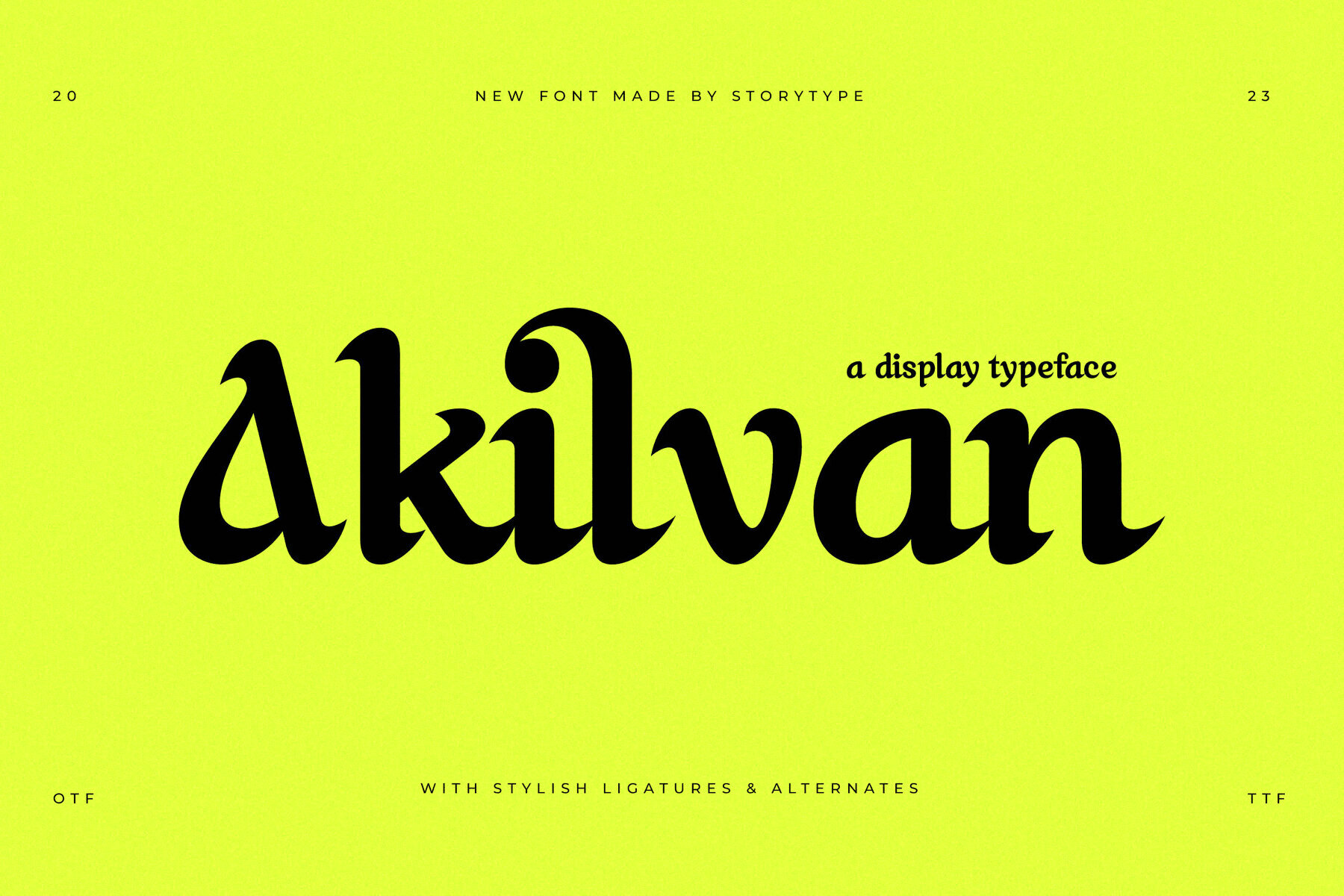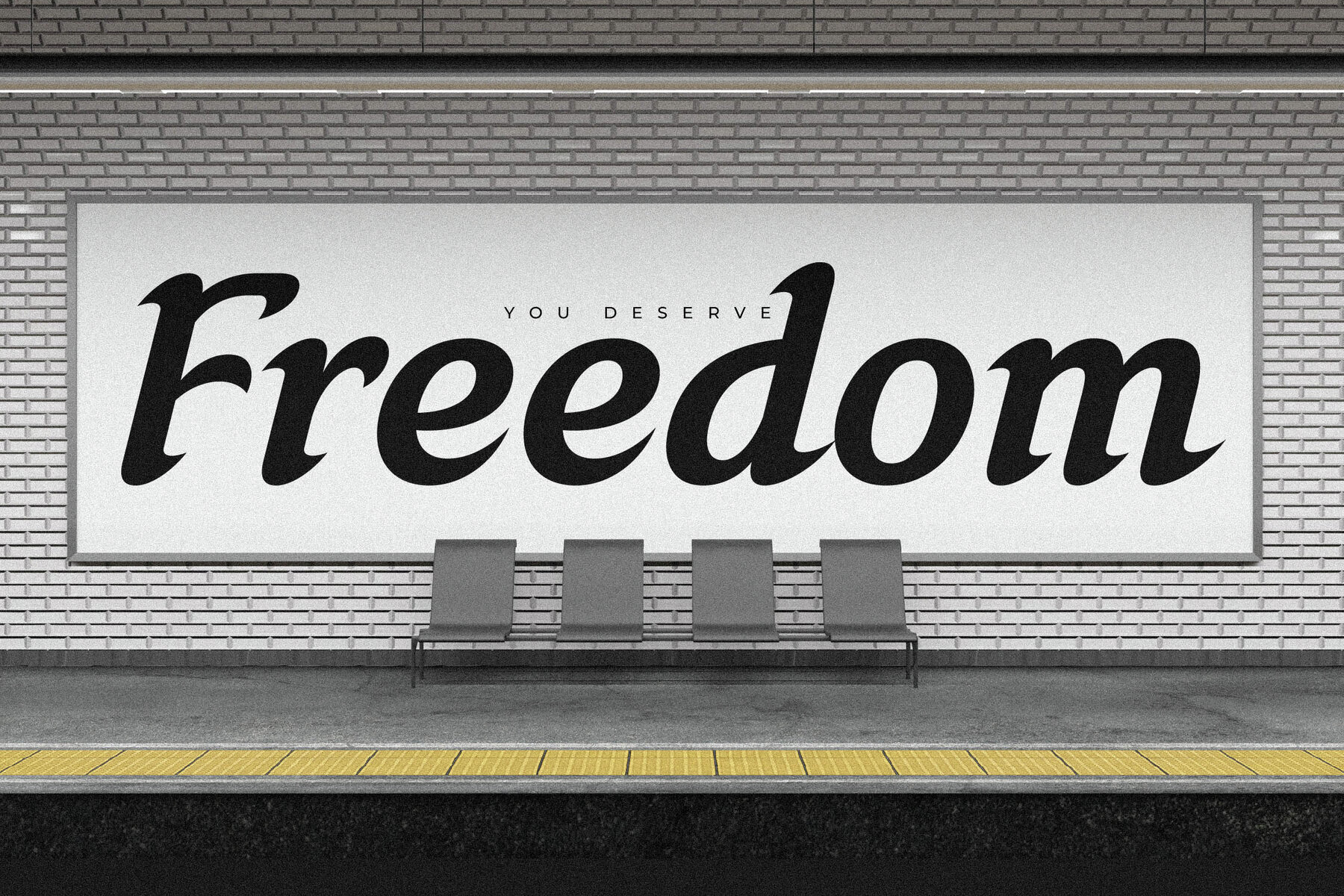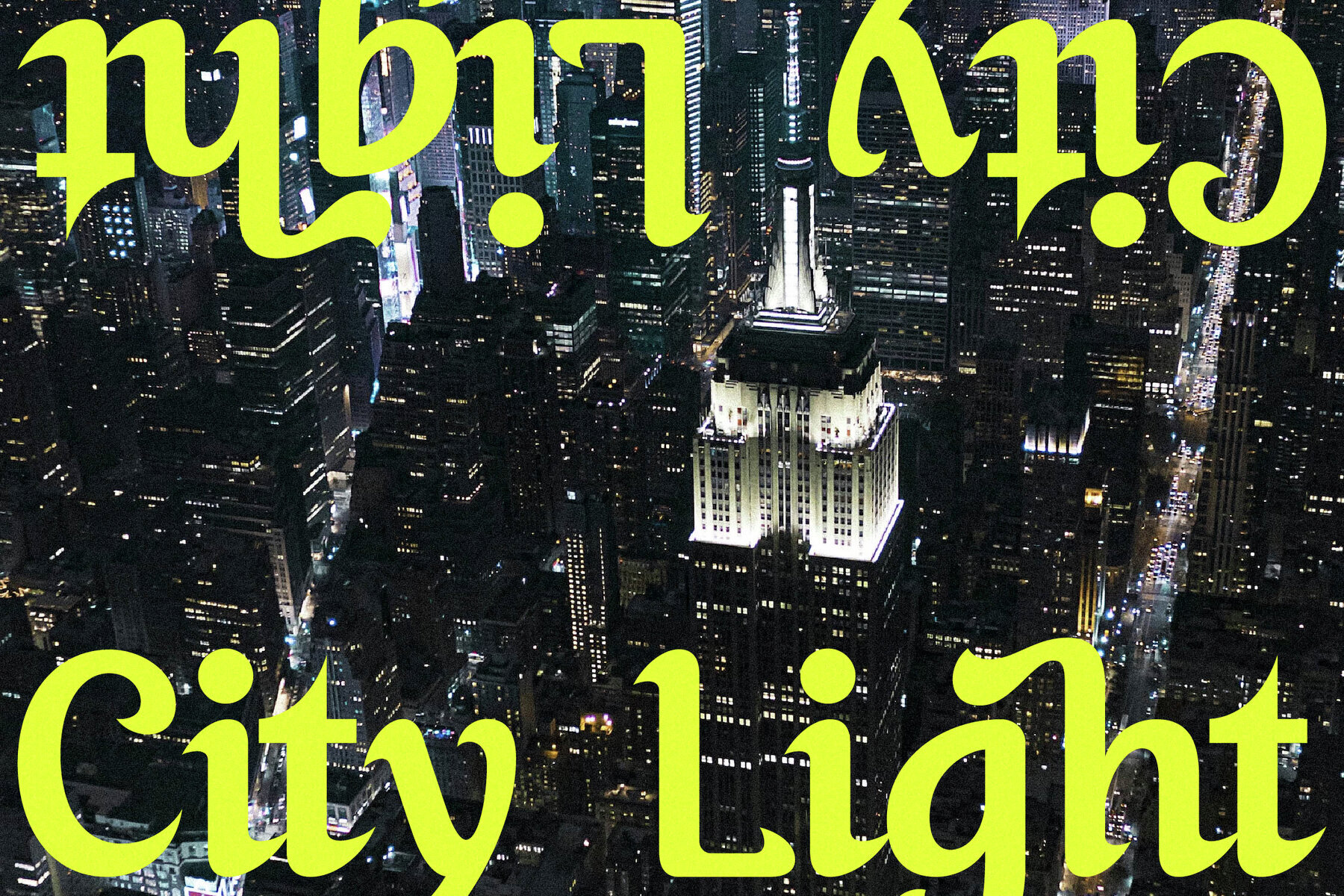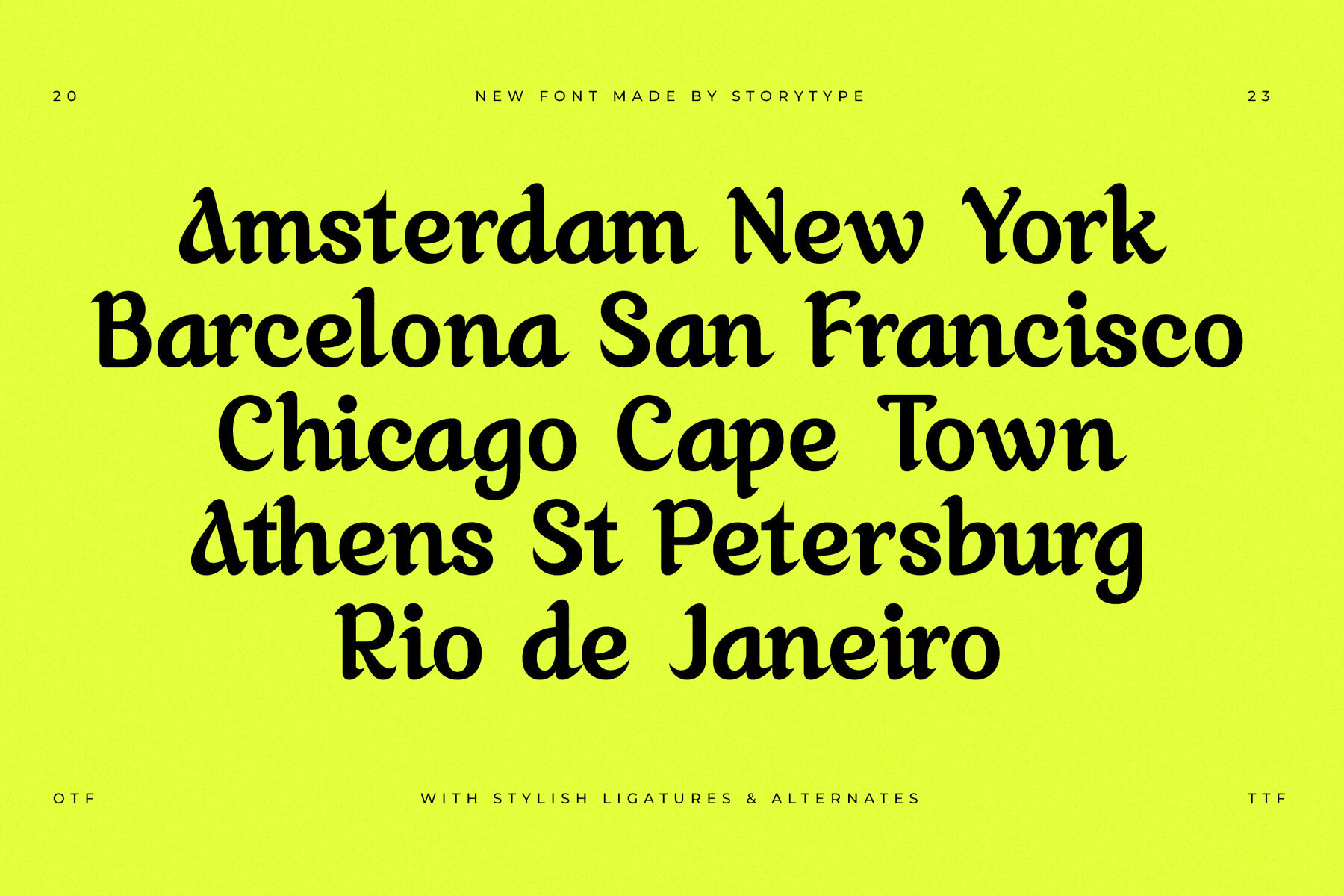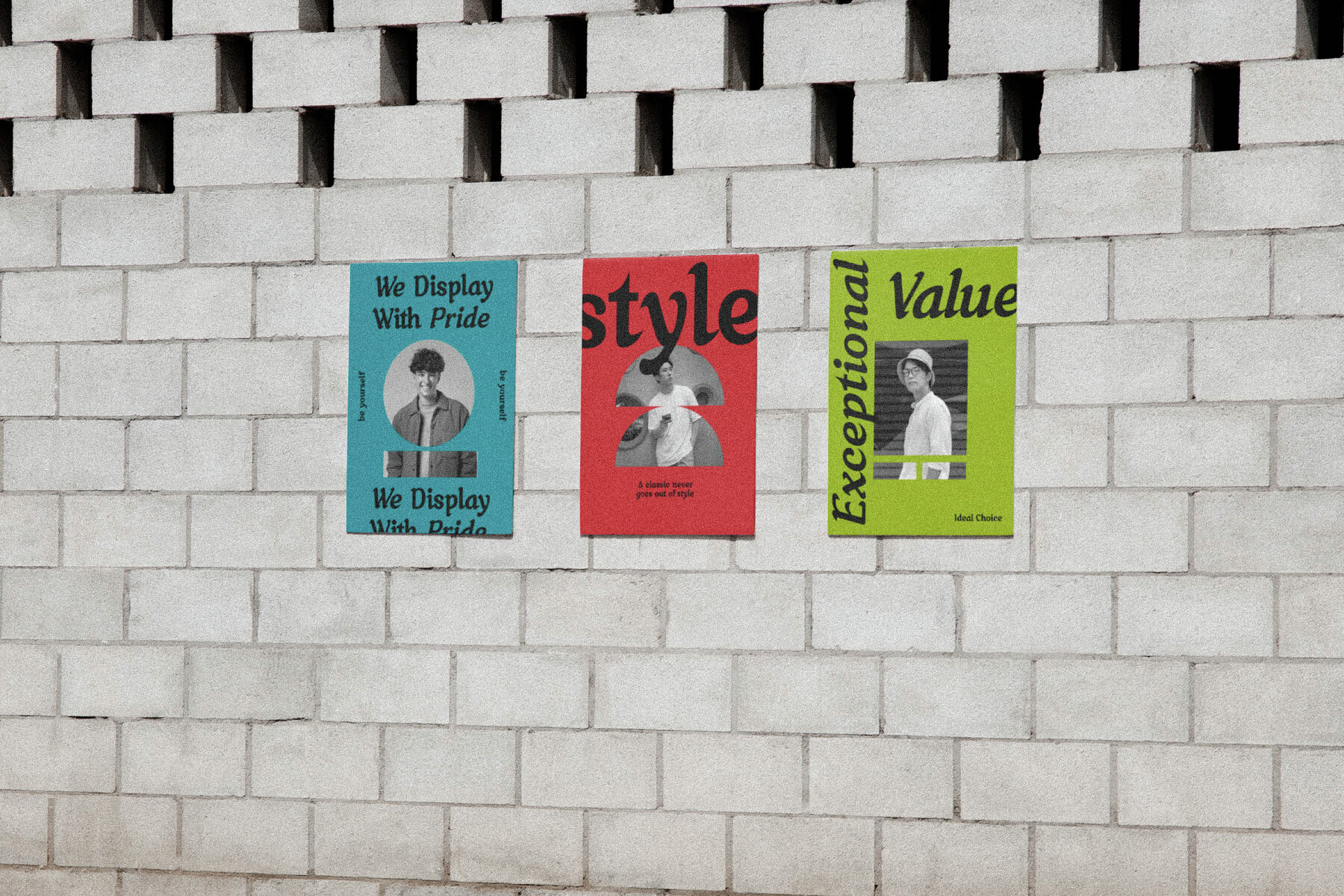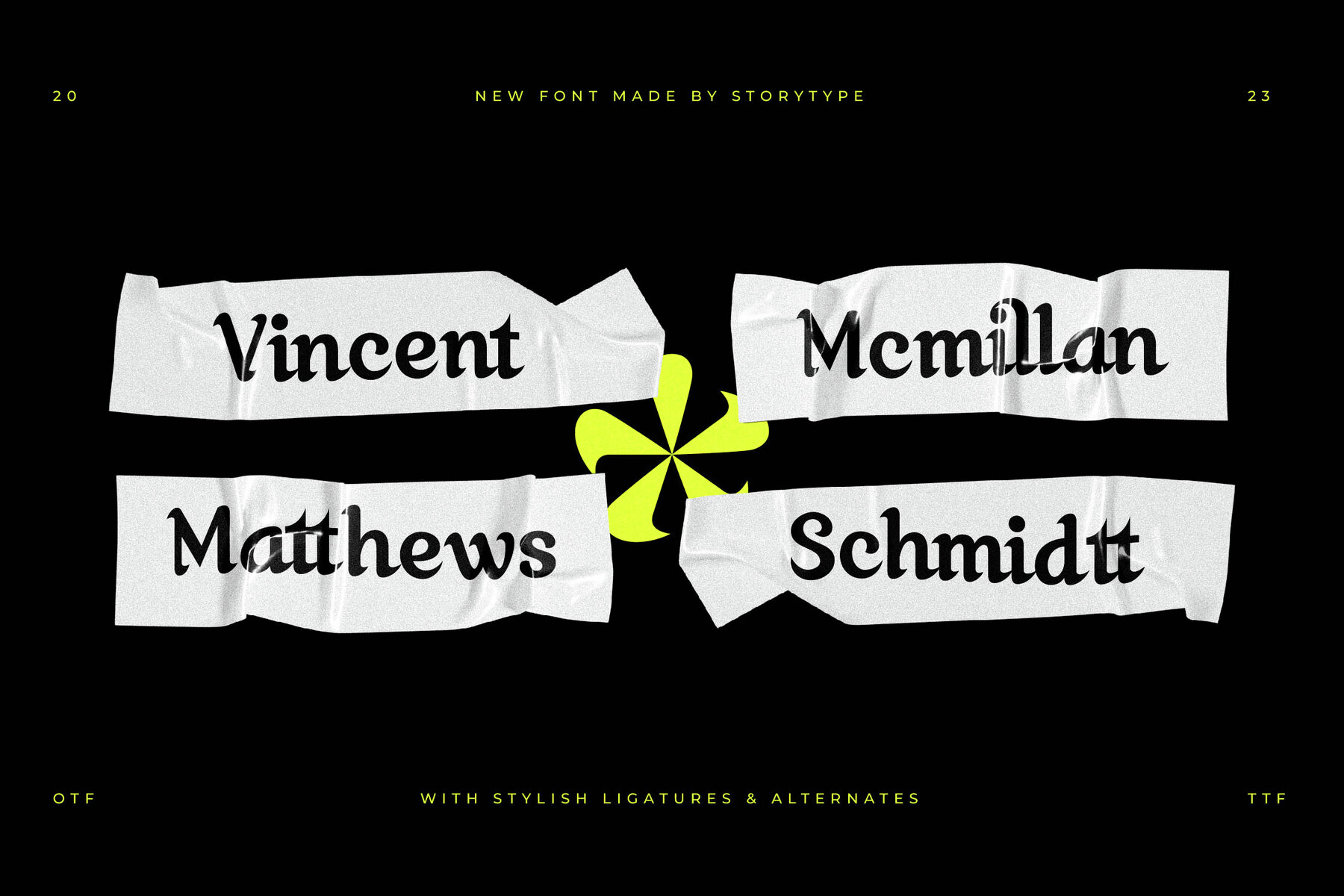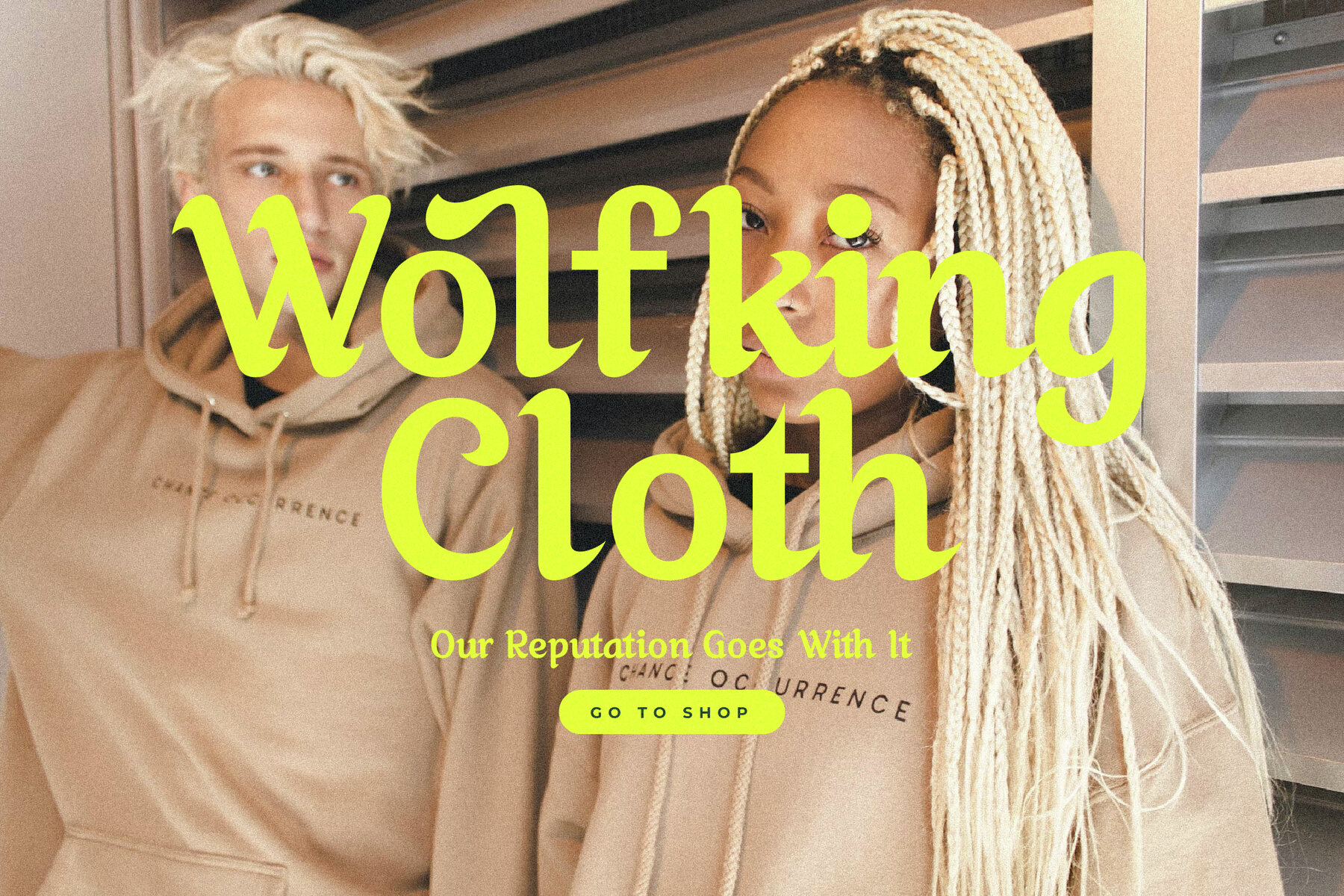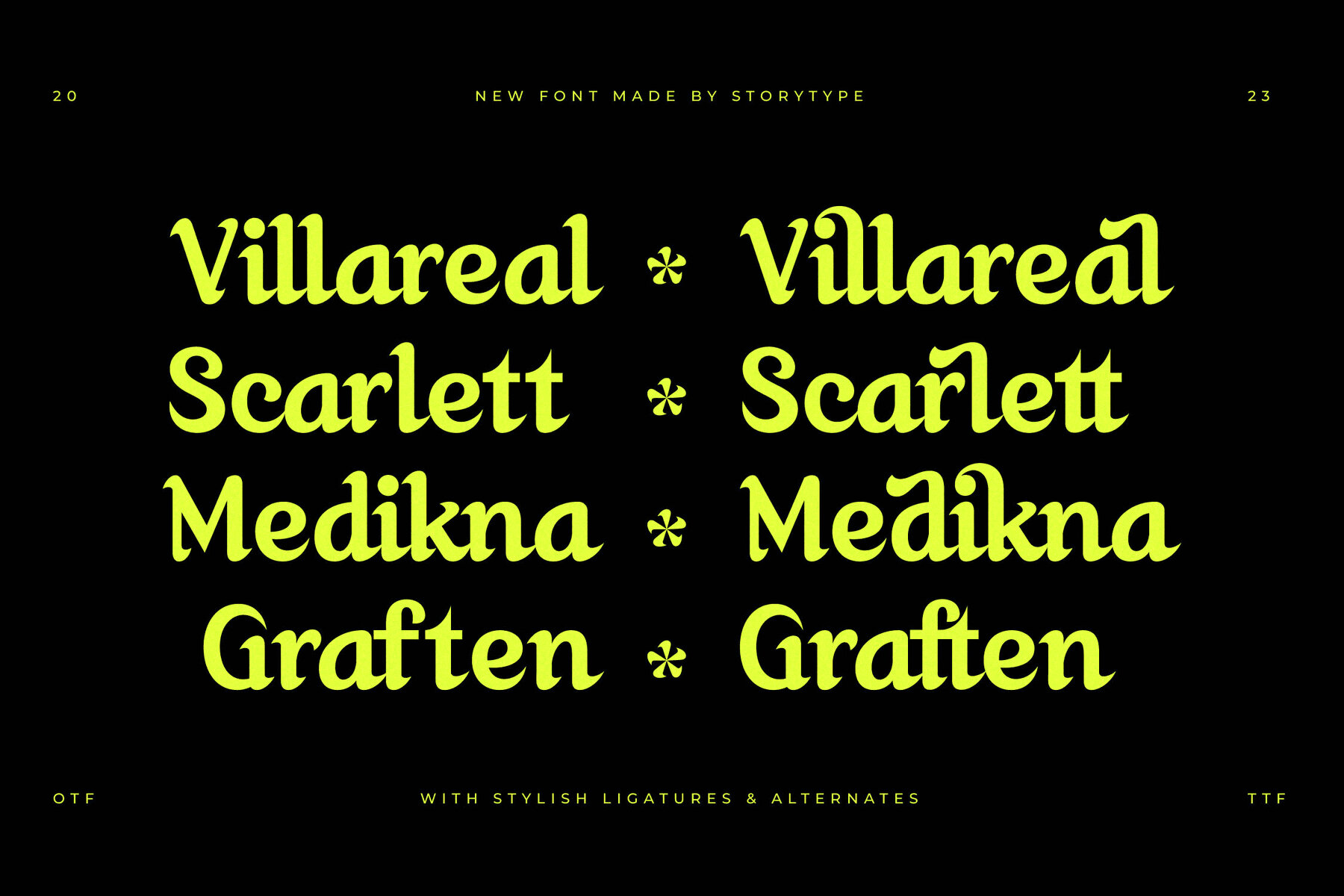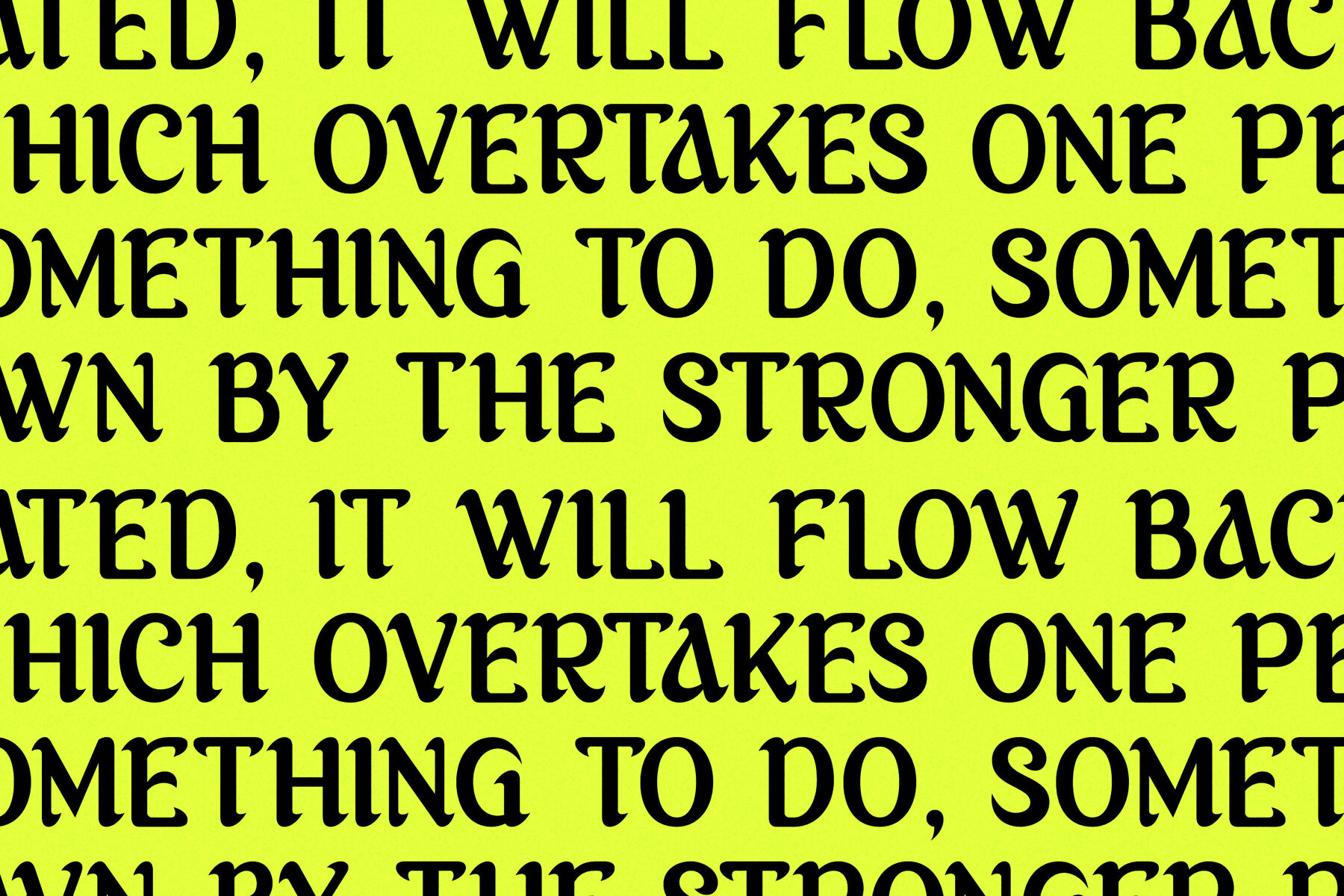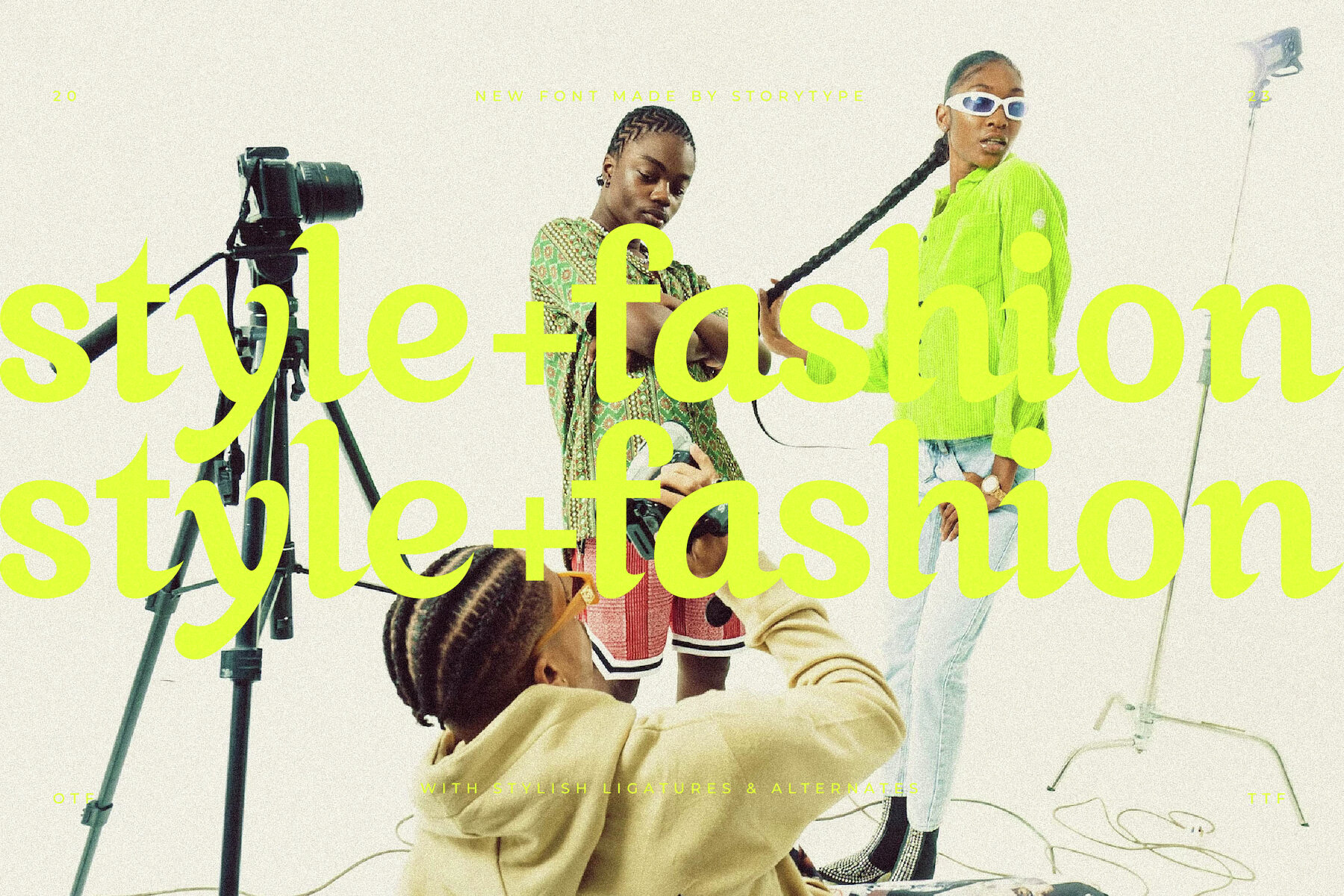
Akilvan Font
Akilvan stands at the intersection of refined tradition and contemporary design, balancing sharp serif sophistication with subtle modern details. Its distinct aesthetic makes it a reliable choice for branding, editorial work, and visual identities that demand a sense of elegance without excess. Akilvan’s contours lend themselves well to luxury brands, magazine headlines, and cinematic titles, while remaining approachable for daily use. This serif typeface adapts effortlessly to both digital and print media. Its versatility allows designers to move confidently between high-profile logo design, editorial spreads, and expressive typographic compositions. Whether set as a bold title or composed into body text, Akilvan maintains clarity and presence, engaging readers with its poised demeanor.Akilvan: Modern Serif With Classic Poise